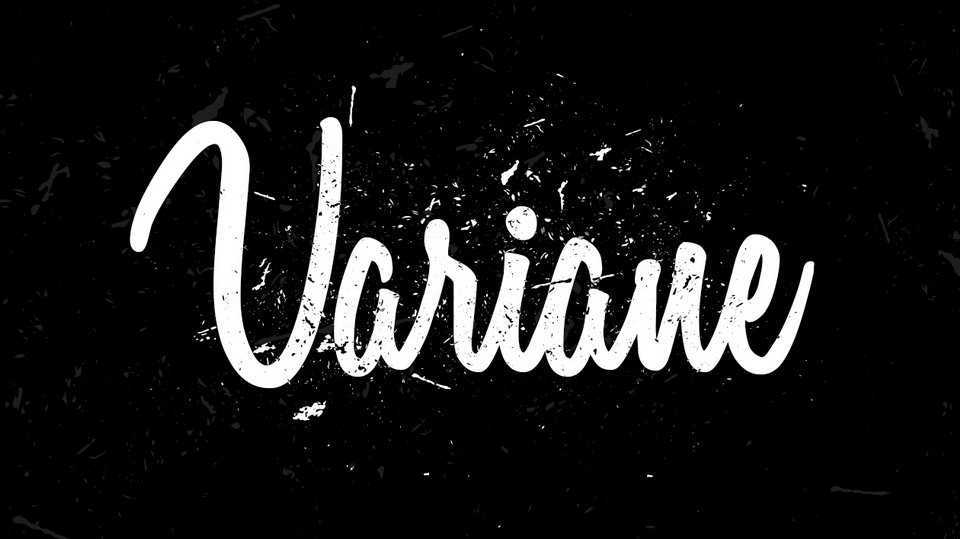
Download Variane font, a beautiful and elegant handwritten script with vintage feeI. It’s a great choice for personal branding, logo and cards, wedding decoration, social media, printed quotes and much more.
Designer: Boy Moch Tomi